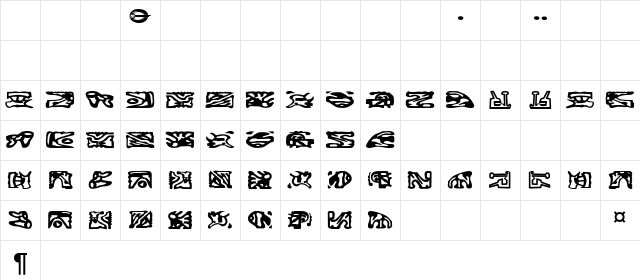
ST Bajoran Ideogram Regular
Design Context for ST Bajoran Ideogram
ST Bajoran Ideogram is a composed and adaptable typeface that performs quietly and consistently across a wide range of design contexts.